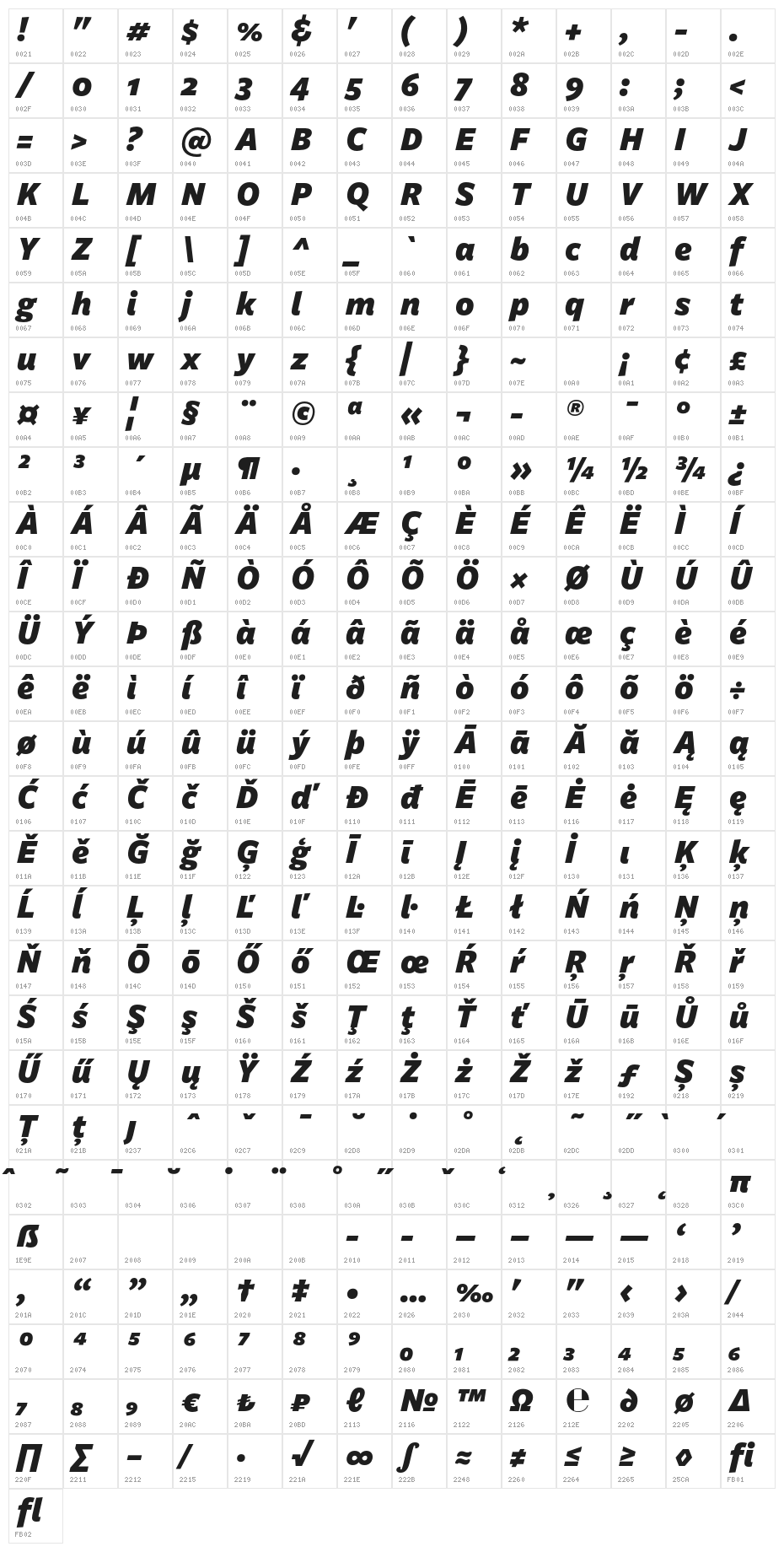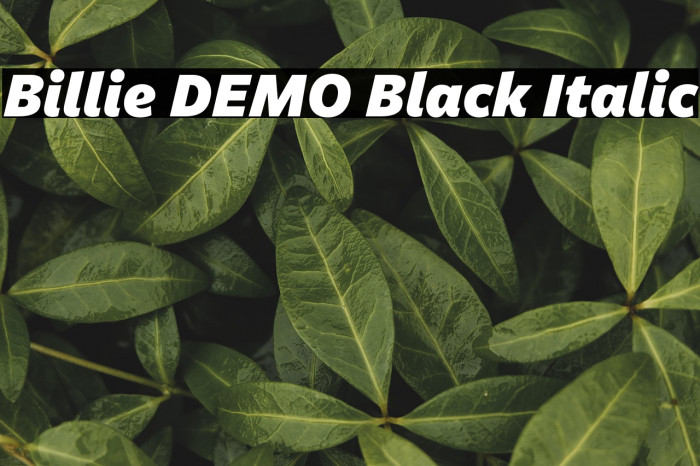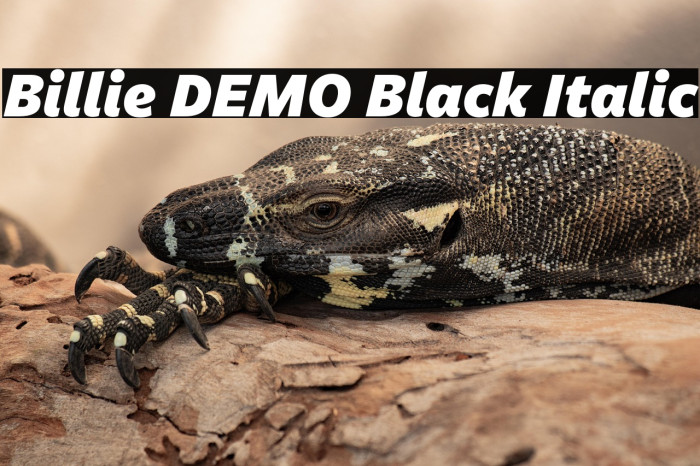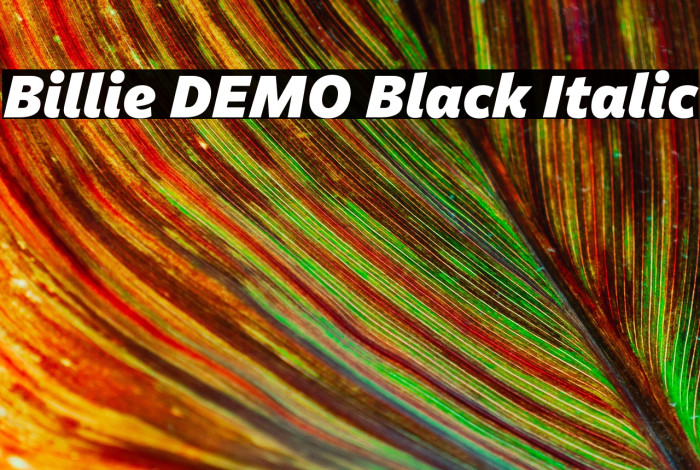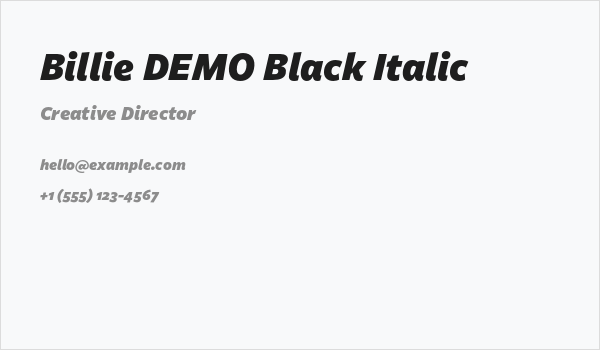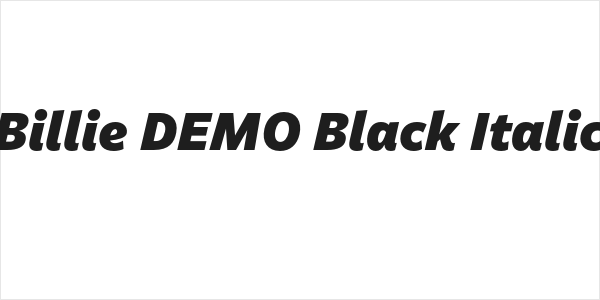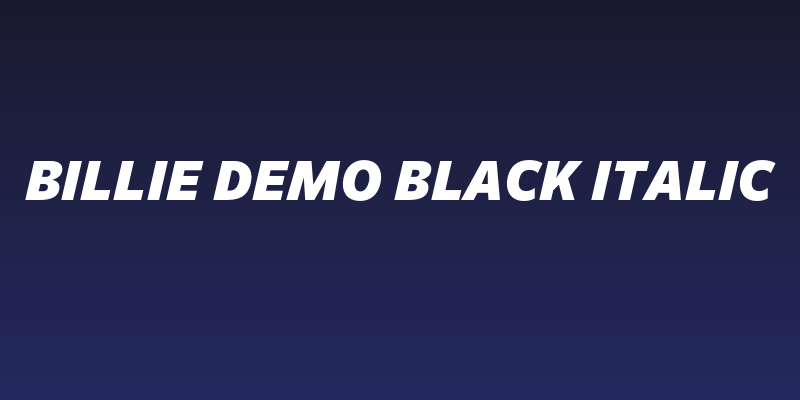
Billie DEMO Black Italic Font
Billie DEMO Black Italic Description
This font presents a bold and dynamic appearance with a strong italic slant, giving it a sense of motion and energy. The characters are thick and robust, making them highly visible and impactful. The uppercase and lowercase letters maintain a consistent style, with rounded edges that soften the overall look. The numbers and special characters follow the same bold and italicized design, ensuring uniformity across all elements. This font is well-suited for projects that require a strong visual presence and a modern, energetic feel.
| Proposed Projects | Ideal for headlines, posters, branding, and advertising where a strong and energetic impact is desired. |